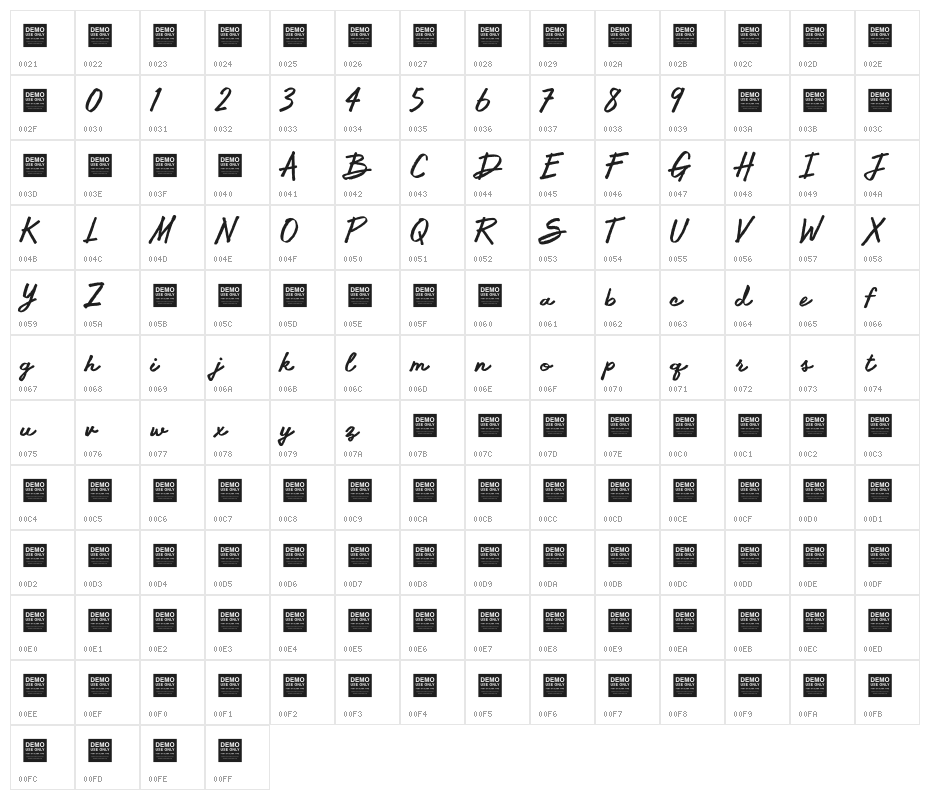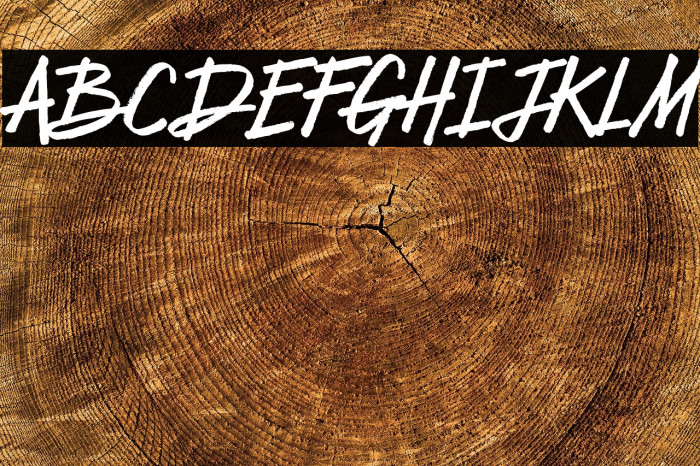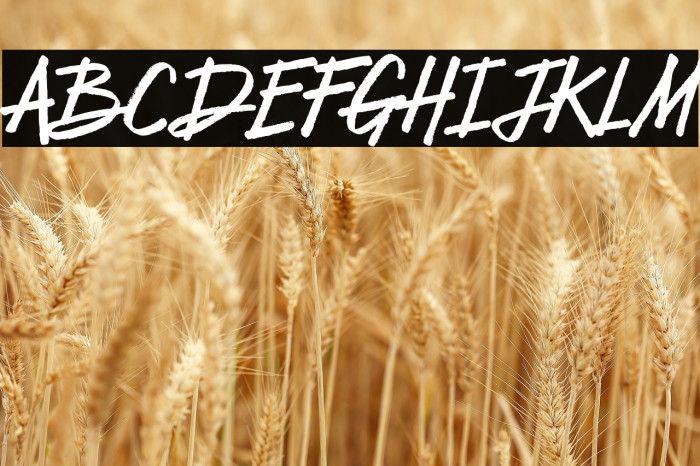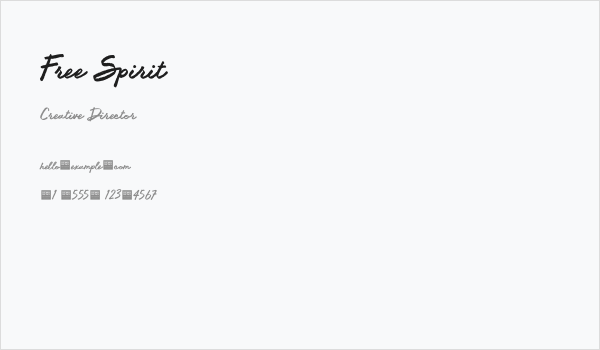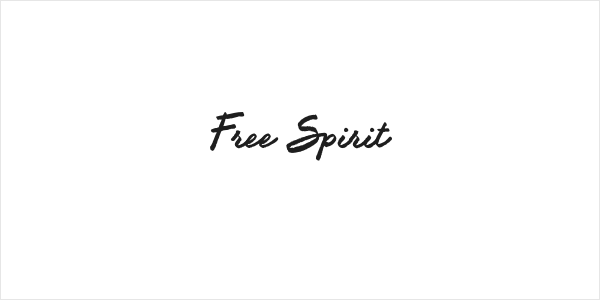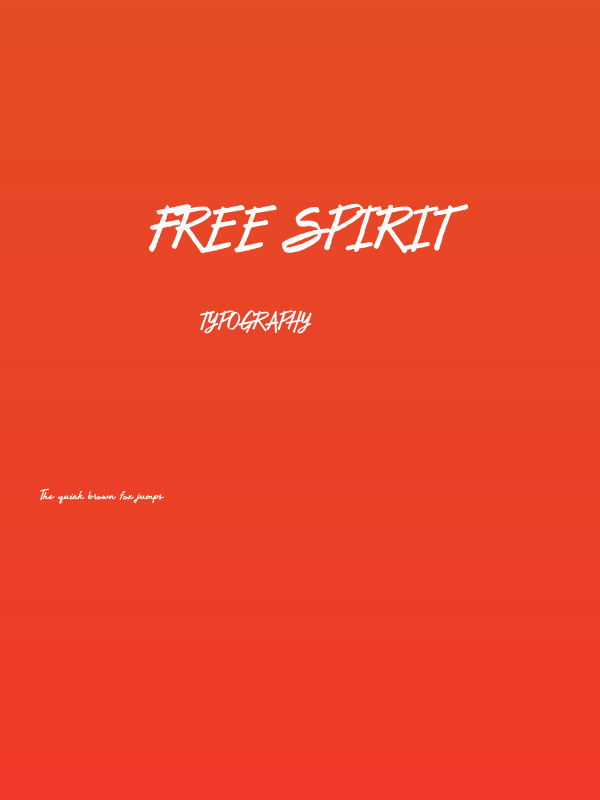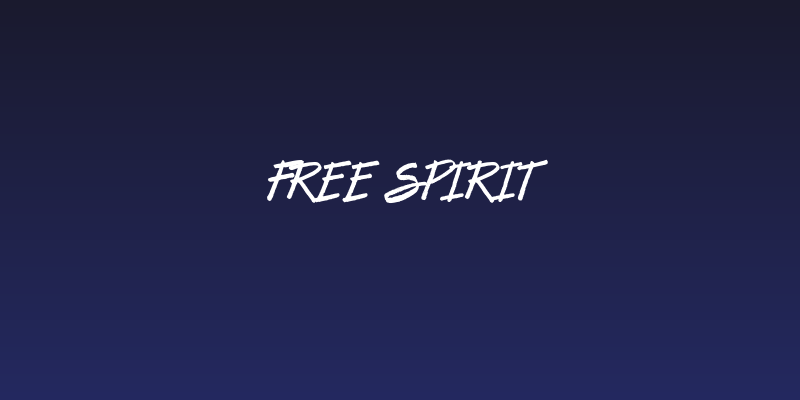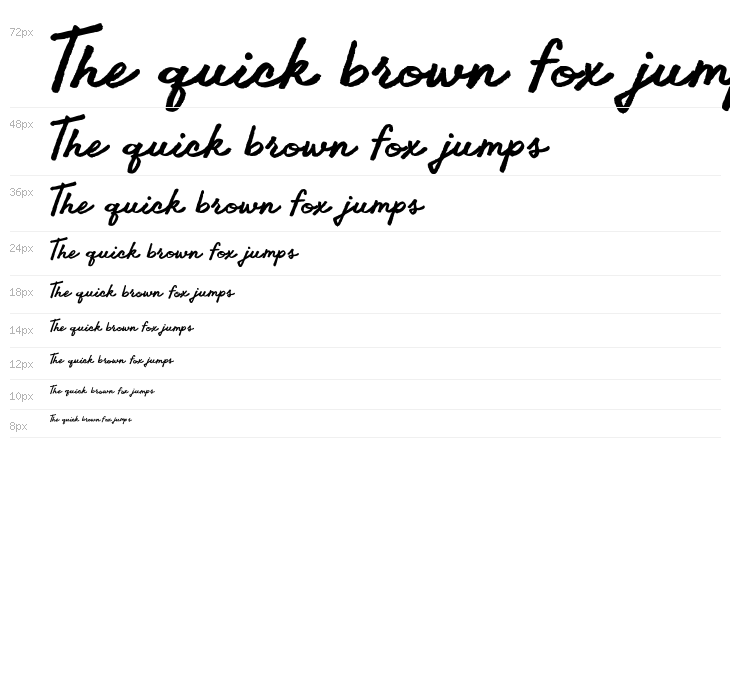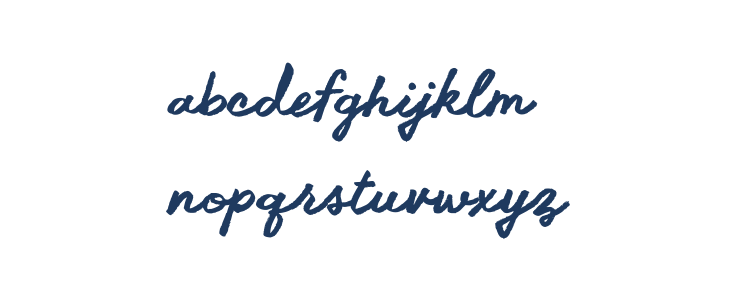
Free Spirit Font
Free Spirit Description
This font exhibits a lively and dynamic handwritten style, characterized by its fluid and cursive strokes. The uppercase letters are bold and slightly slanted, giving a sense of movement and energy. The lowercase letters maintain a consistent flow, enhancing the handwritten aesthetic. The numerals are clear and legible, matching the overall style with their smooth curves. The font's playful yet sophisticated appearance makes it suitable for creative projects. Its unique character is further emphasized by the varied stroke thickness, adding depth and personality to each letter.